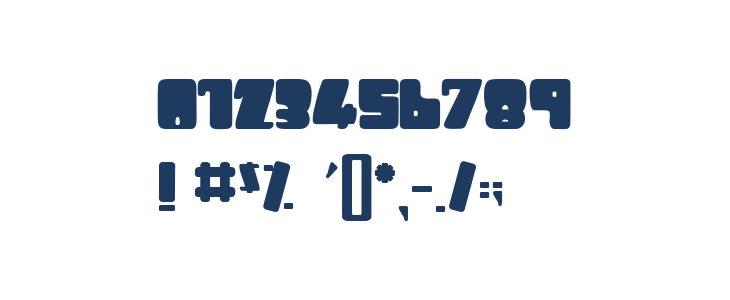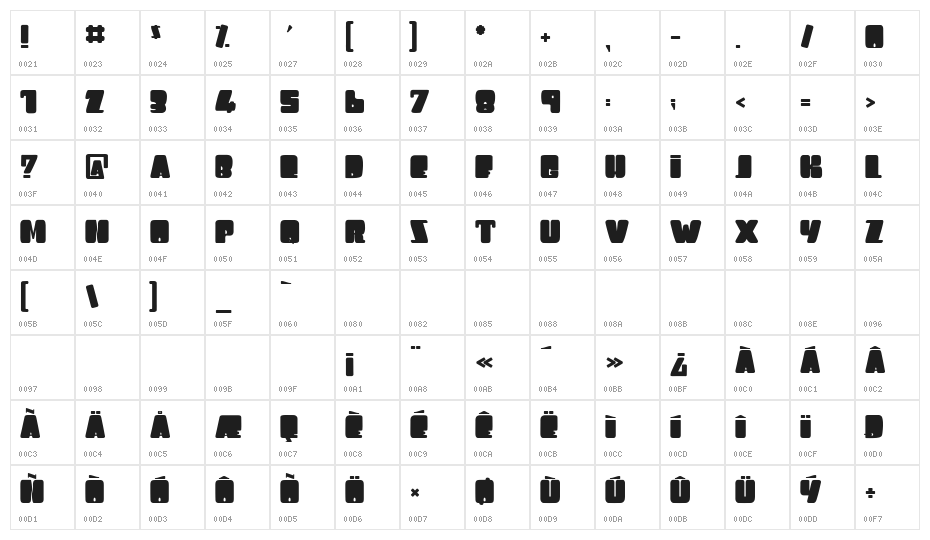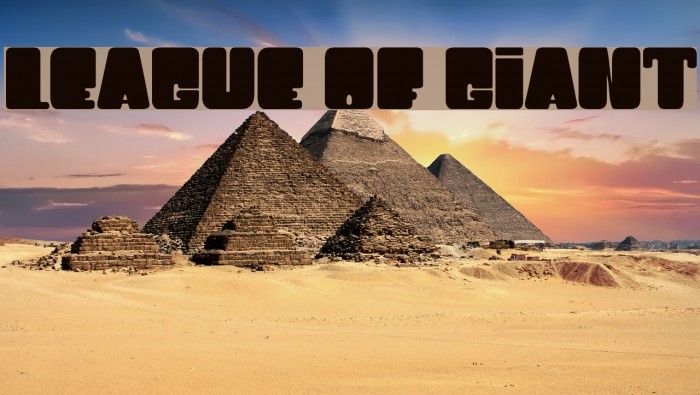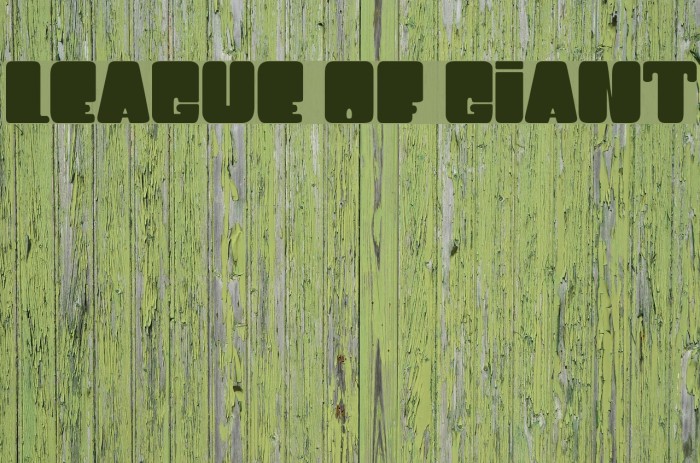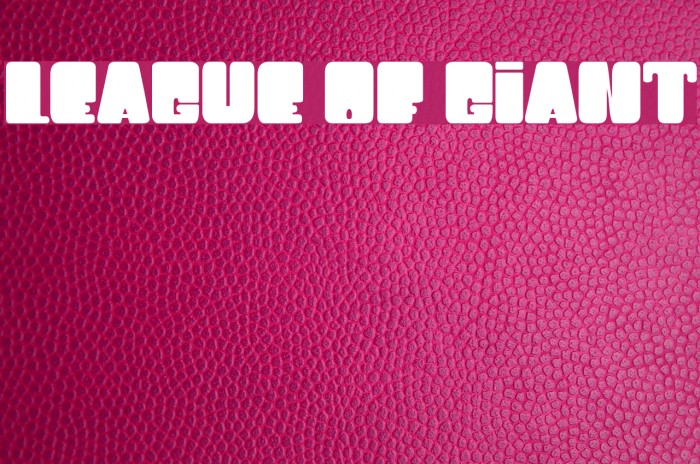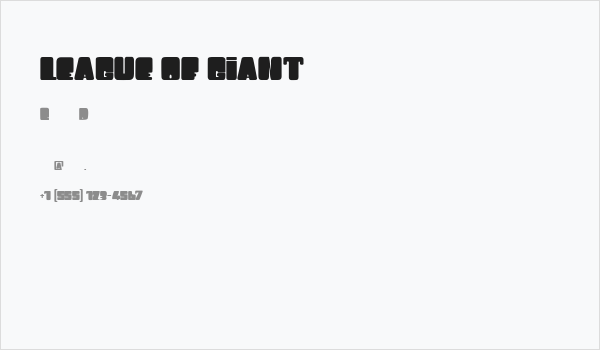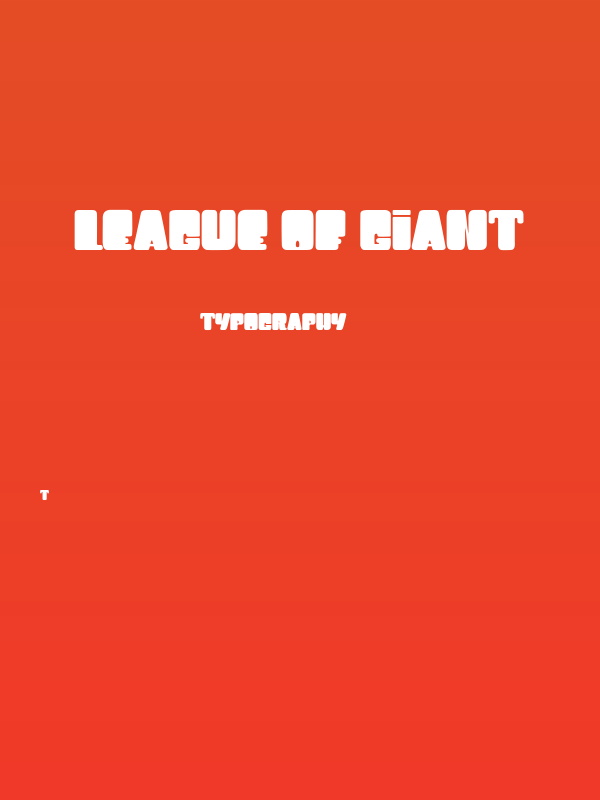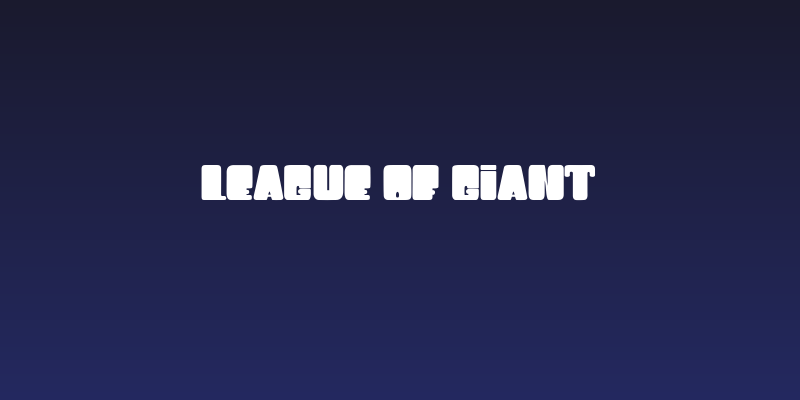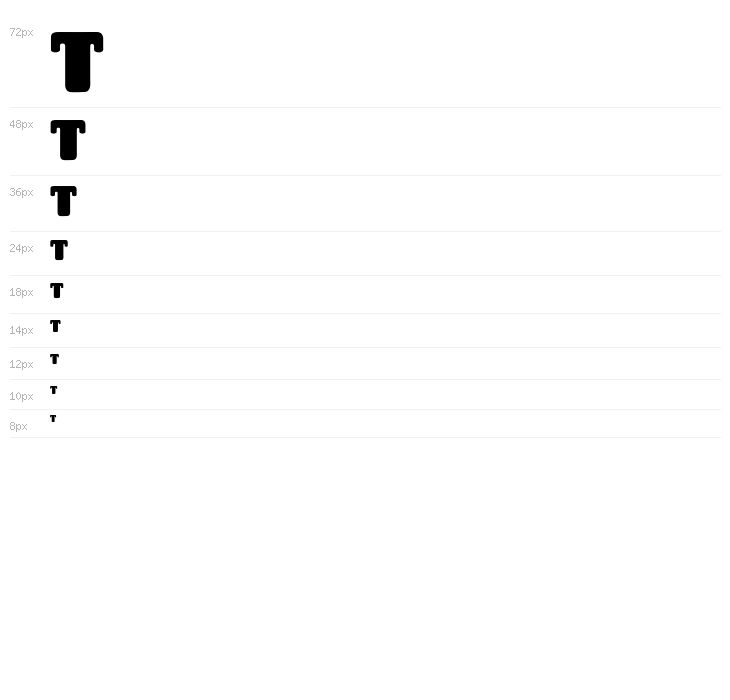
LEAGUE OF GIANT Font
LEAGUE OF GIANT Description
This font features a bold and robust design, characterized by its thick, block-like letterforms. The uppercase letters are uniformly wide, creating a strong and imposing presence. The numbers and special characters maintain the same boldness, ensuring consistency across all glyphs. The font's style is distinctly modern and decorative, with a playful yet powerful aesthetic. Its solid structure and lack of serifs give it a contemporary feel, while the rounded edges add a touch of softness to the otherwise strong appearance. This font is ideal for projects that require a bold statement, such as posters, headlines, and branding materials.
| Proposed Projects | Ideal for posters, headlines, branding, and any project needing a bold statement. |